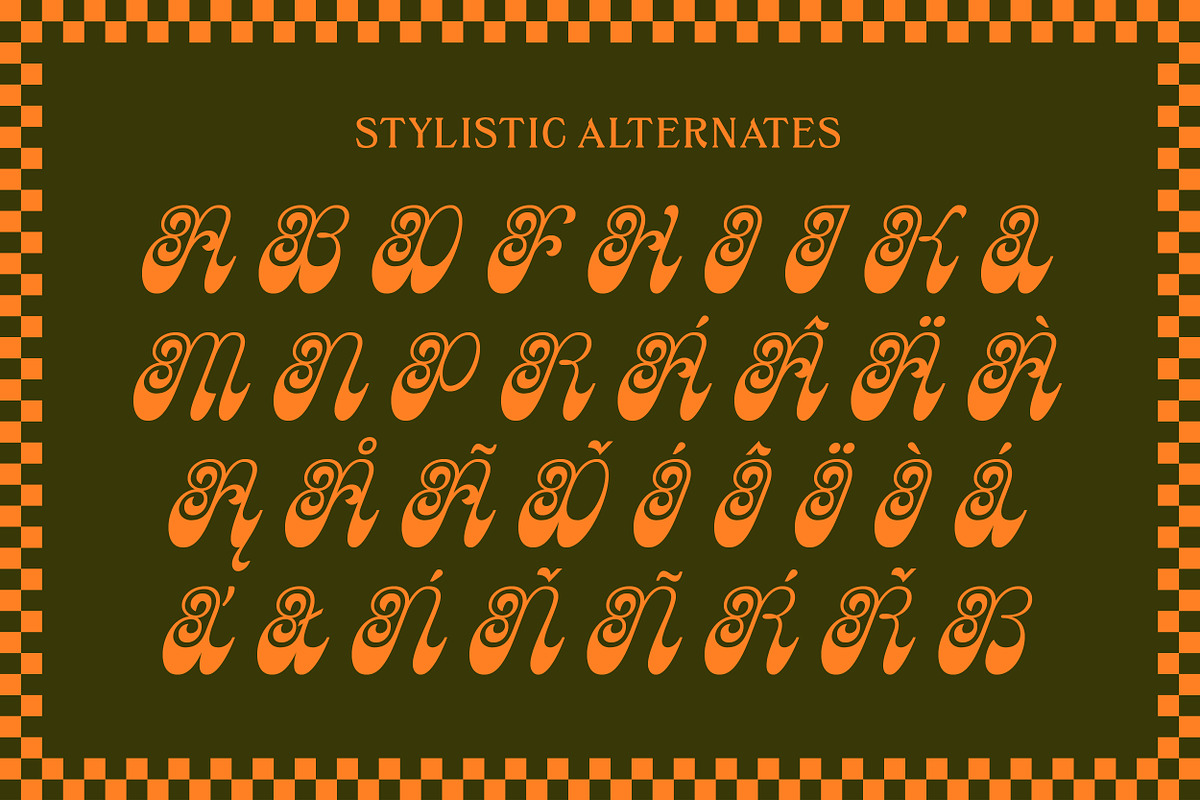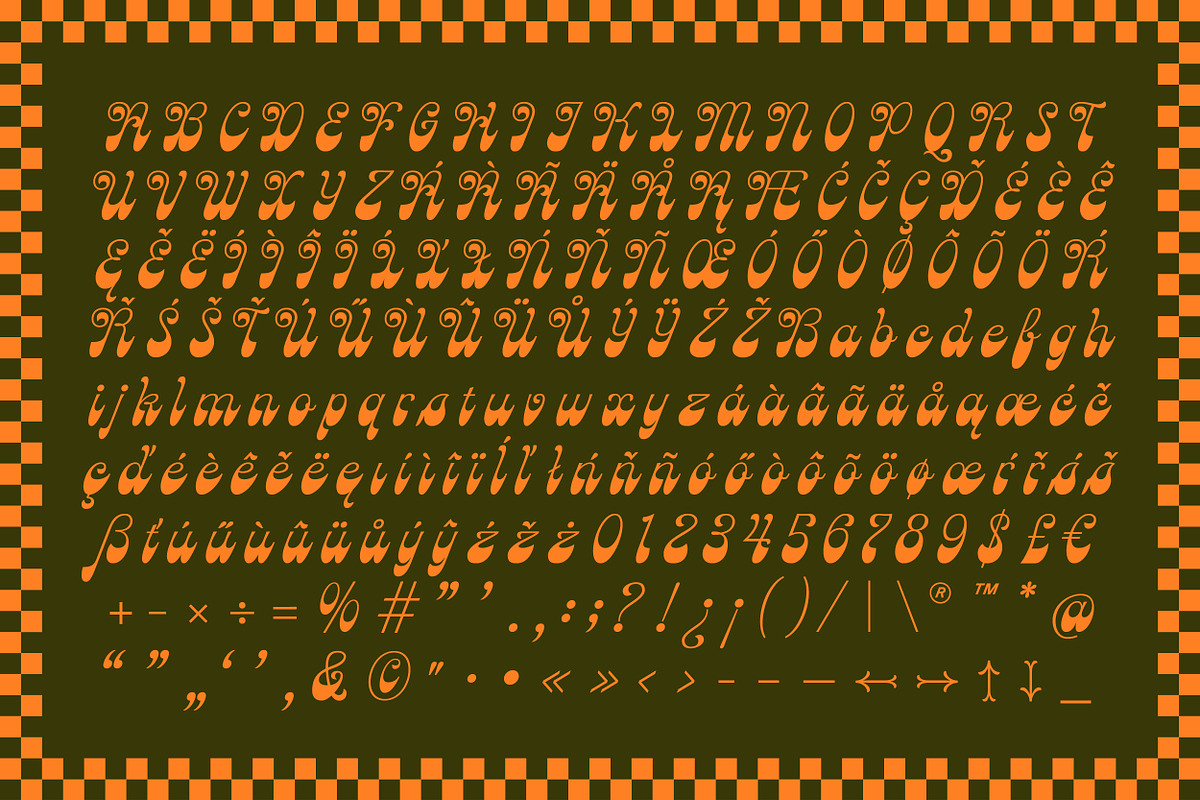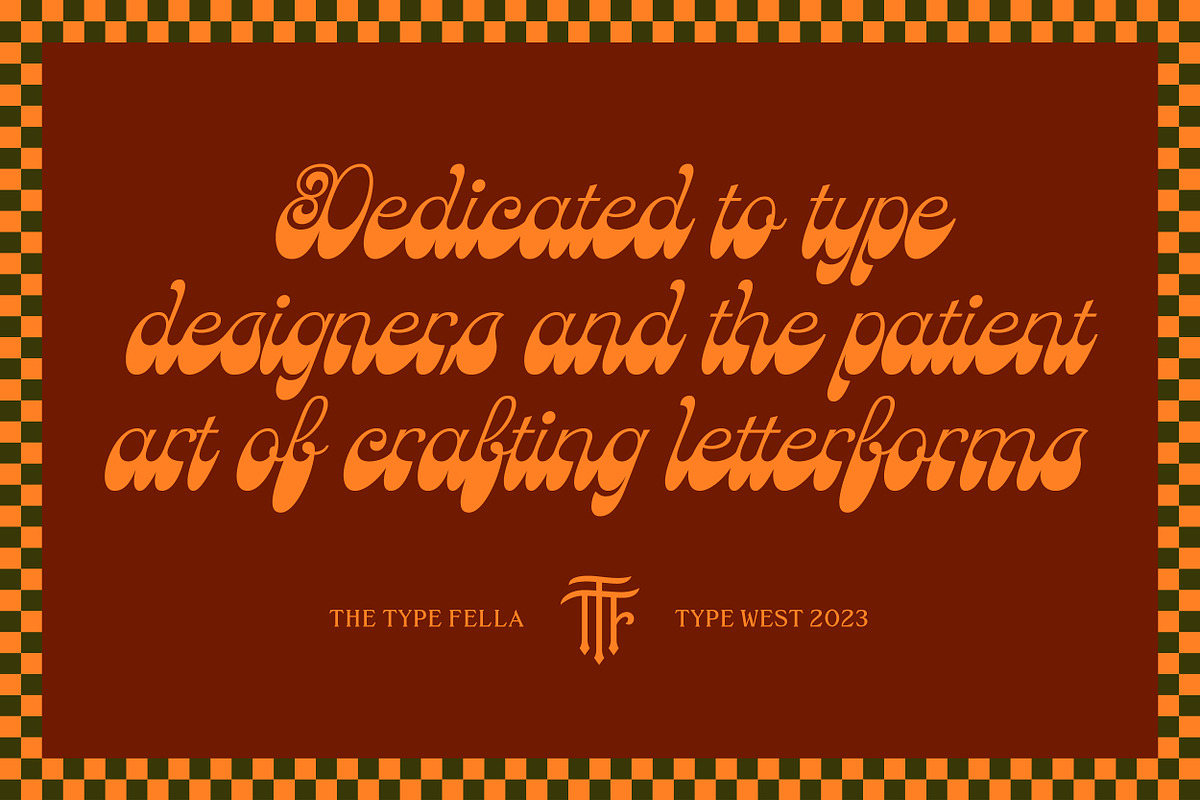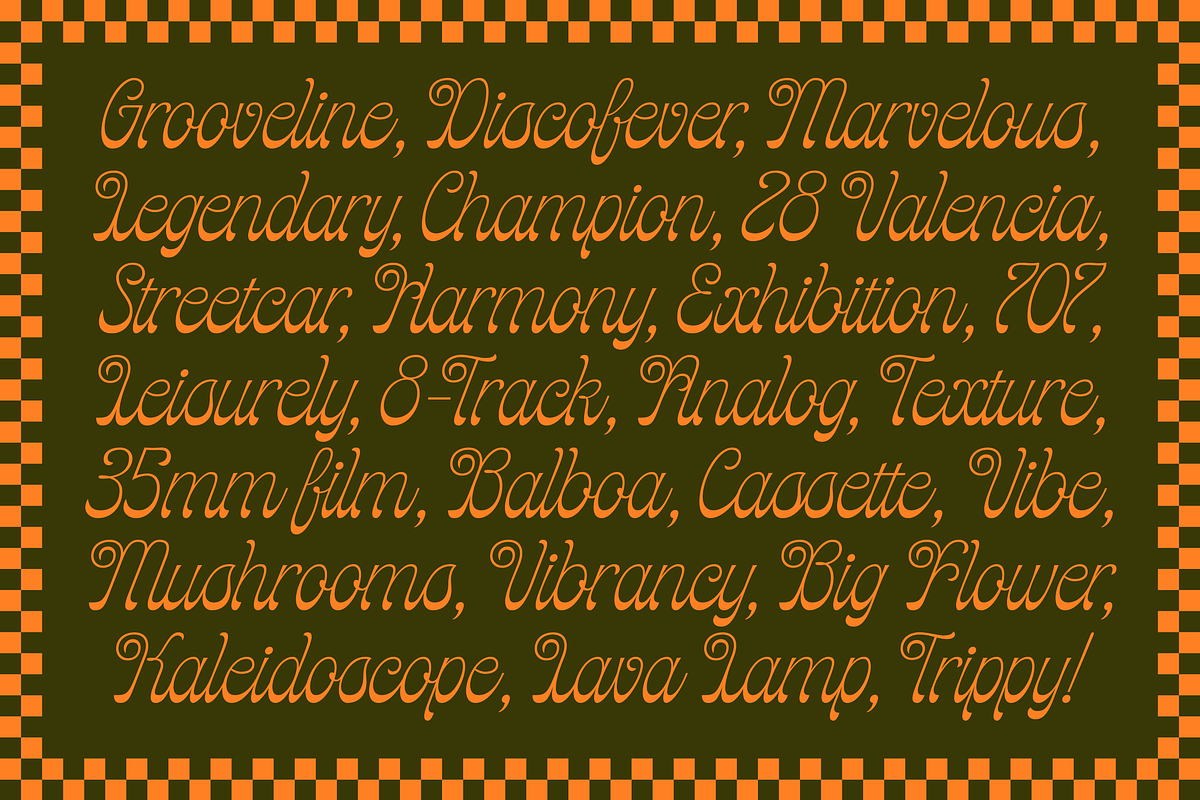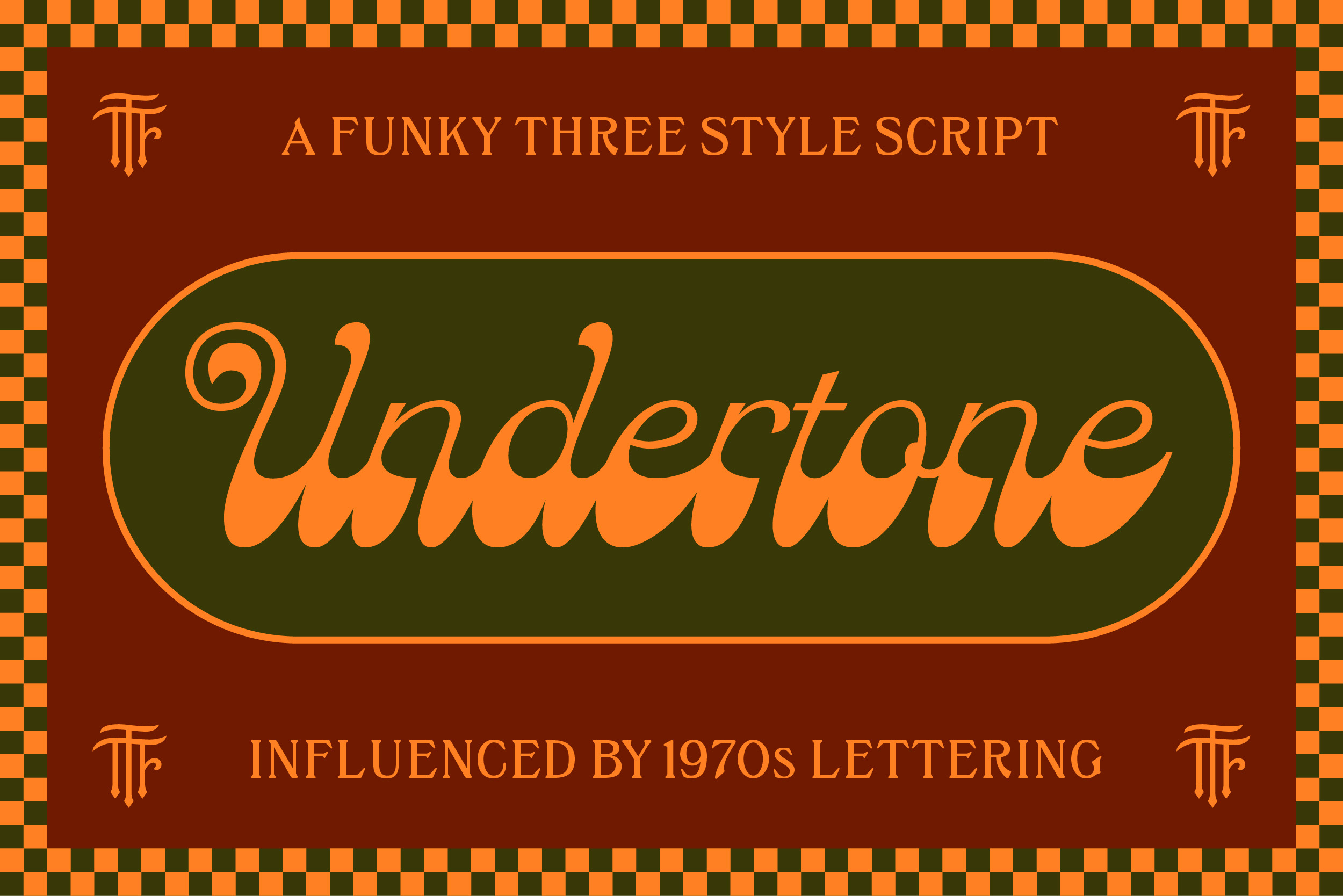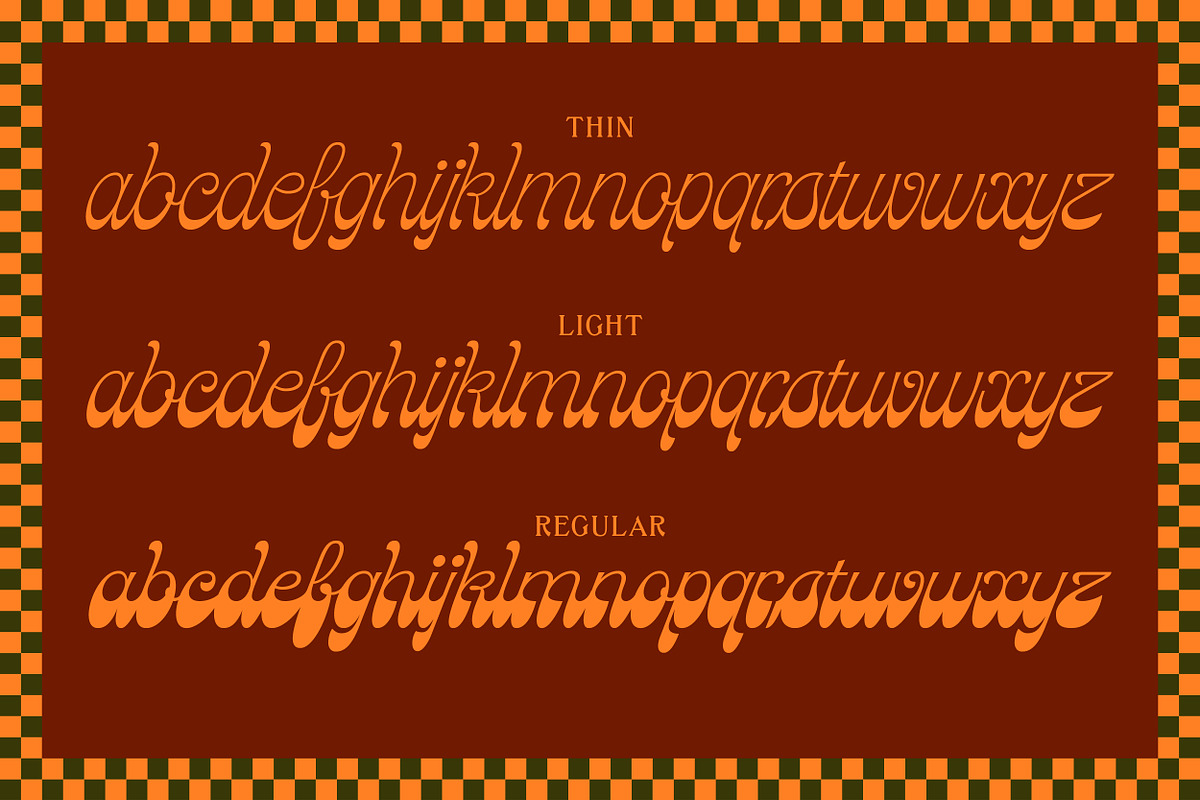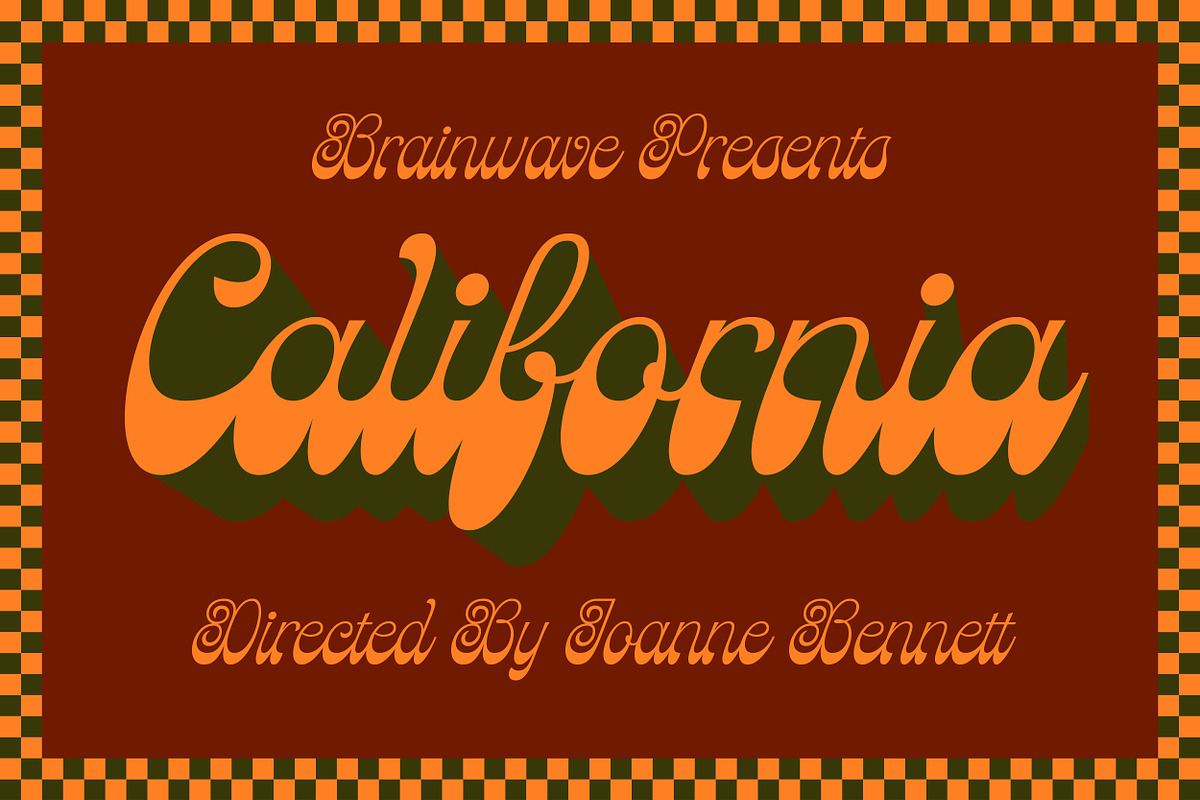
Undertone - Variable Script Font
Undertone is a funky and rhythmic variable script typeface that captures the essence of 1970s lettering. It features a thin, light, and regular style, with variations in weight predominantly appearing in the bottom parts of the letterforms—either ascending or descending—while maintaining consistent styling in their upper areas. This intentional design choice creates an infectious energy and pulsating rhythm across the letters, establishing Undertone as an excellent display face capable of infusing projects with an abundance of character and style.
Includes stylistic alternates and the following additional language support: Á À Ã Ä Å Ą Æ Ć Č Ç Ď É È Ê Ę Ě Ë Í Ì Î Ï Ĺ Ľ Ł Ń Ň Ñ Œ Ó Ő Ò Ø Ô Õ Ö Ŕ Ř Ś Š Ť Ú Ű Ù Û Ü Ů Ý Ÿ Ź Ž ẞ á à â ã ä å ą æ ć č ç ď é è ê ě ë ę ı í ì î ï ĺ ľ ł ń ň ñ ó ő ò ô õ ö ø œ ŕ ř ś š ß ť ú ű ù û ü ů ý ŷ ź ž ż